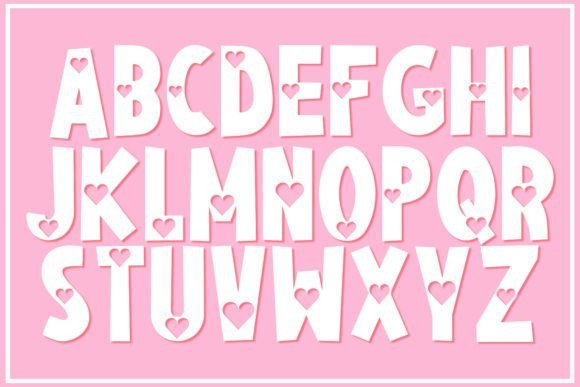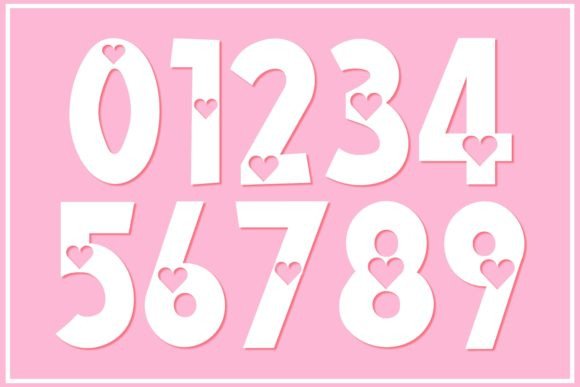
Heart Font: The Sweetest Decorative Font for Your Valentine’s Day Projects
Are you looking for a font that exudes love, sweetness, and playfulness? Look no further than the Heart Font! This lovely and sweet decorative font is perfect for all your Valentine’s Day projects, adding a touch of adorable charm and cute decorative elements that will make your designs stand out.
What is Heart Font?
Heart Font is a decorative font designed specifically for creative projects that require a touch of whimsy and romance. Its unique and intricate design features heart-shaped elements, making it an ideal choice for Valentine’s Day-themed designs, wedding projects, and any other occasion that celebrates love and affection.
Key Features of Heart Font
- Adorable Charm: Heart Font boasts an irresistible charm that will make your designs look sweet and endearing.
- Cute Decorative Elements: The font features heart-shaped decorative elements that add a playful touch to your projects.
- Perfect for Valentine’s Day: Heart Font is specifically designed for Valentine’s Day projects, making it a must-have for designers and crafters.
- High-Quality Design: Heart Font is designed with high-quality graphics, ensuring that your projects look professional and visually appealing.
Uses of Heart Font
Heart Font is a versatile font that can be used in a variety of creative projects, including:
- Valentine’s Day Cards: Create beautiful and unique Valentine’s Day cards with Heart Font.
- Wedding Invitations: Add a touch of romance and whimsy to your wedding invitations with Heart Font.
- Social Media Graphics: Use Heart Font to create engaging social media graphics that celebrate love and affection.
- Digital Art: Incorporate Heart Font into your digital art projects, such as illustrations and graphics.
- Crafting Projects: Use Heart Font to add a personal touch to your crafting projects, such as scrapbooking and DIY gifts.
Tips for Using Heart Font
To get the most out of Heart Font, here are some tips to keep in mind:
- Pair with Other Fonts: Experiment with pairing Heart Font with other fonts to create a unique and visually appealing design.
- Use in Combination with Images: Combine Heart Font with images of hearts, flowers, and other romantic elements to create a beautiful design.
- Experiment with Colors: Try out different colors and color combinations to find the perfect match for your Heart Font design.
- Keep it Simple: Don’t overcomplicate your design – keep it simple and let Heart Font be the focal point.
| Font Name | Heart Font |
| Author | Color Alphabet |
In conclusion, Heart Font is a lovely and sweet decorative font that is perfect for all your Valentine’s Day projects. Its adorable charm and cute decorative elements make it a must-have for designers and crafters who want to add a touch of whimsy and romance to their designs. With its ease of use, high-quality design, and versatility, Heart Font is sure to become a favorite in your font collection.